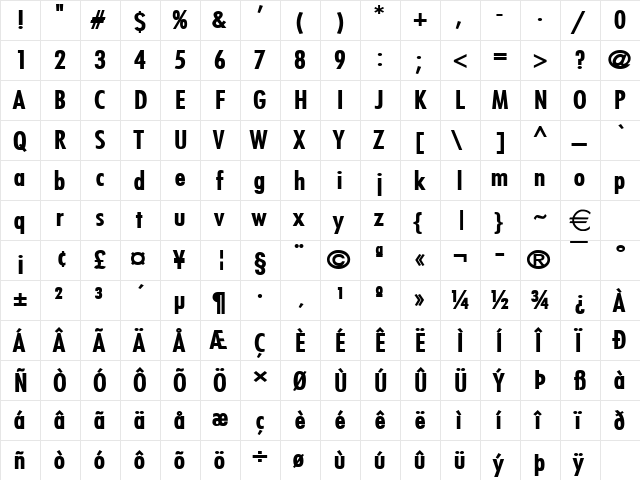
FujiWide Bold Font Preview
FujiWide Bold
Design Context for FujiWide Typeface
FujiWide offers clean, dependable letterforms without strong stylistic allegiance, making it a practical choice for designers who need flexibility. Its bold stroke weight gives it real presence on the page.
Pro Tip: Use FujiWide in both headline and body roles to test its range before committing to a single application.